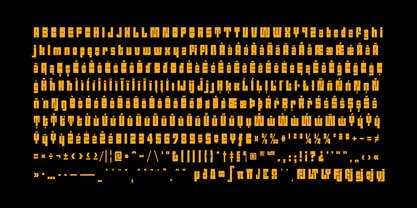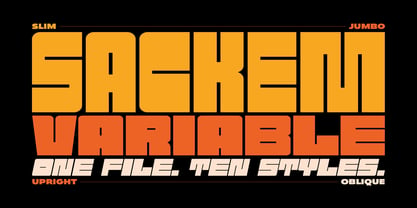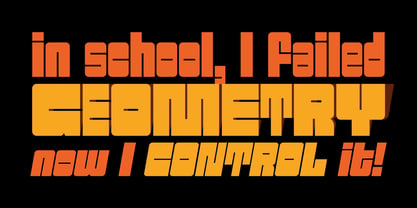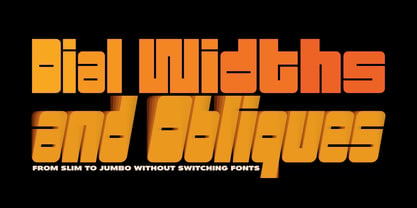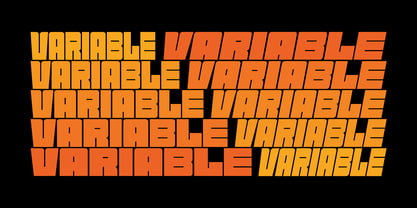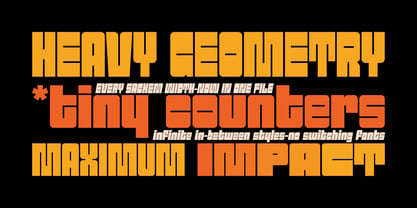
Sackem VF PB
by Pink Broccoli
The Sackem VF PB Font Family was designed by Brian J. Bonislawsky, Phil Bracco and published by Pink Broccoli. Sackem VF PB contains 1 styles. More about this family
Sackem VF PB is a bold geometric bruiser built for designers who like their headlines loud and their counters tiny. What began as a revival of the classic Lettergraphics film typeface Benman Jumbo grew into a 10-style family ranging from the tight Slim widths to the booming Jumbo originals. Now the whole spectrum comes together in a single Variable font, letting you glide smoothly through widths and obliques until you land on the exact flavor of boldness your layout demands. Industrial, chunky, and unapologetically heavy, Sackem VF PB thrives on posters, logos, packaging, sports graphics, and anywhere typography needs to show up and take over the room.